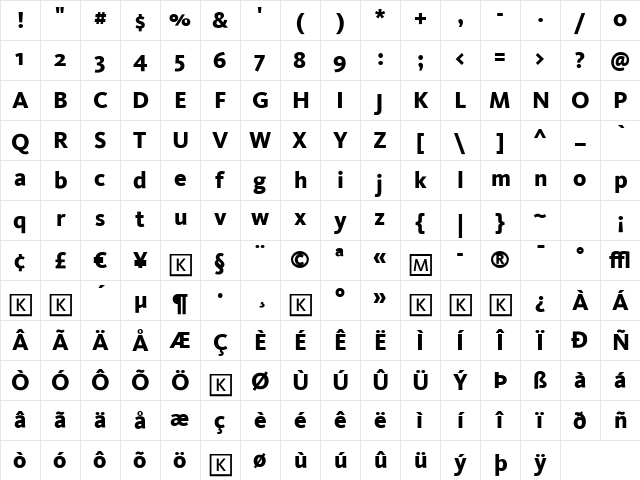
Kievit Extrabold Free Font
Kievit Extrabold
Style: Extrabold
Foundry: copyright Mike Abbink/Method, Inc
Complete Kievit Extrabold glyph index. Displaying only characters natively supported by Kievit Extrabold font.
Design Context for Kievit
Kievit is a composed and adaptable typeface that performs quietly and consistently across a wide range of design contexts. Its bold stroke weight gives it real presence on the page.